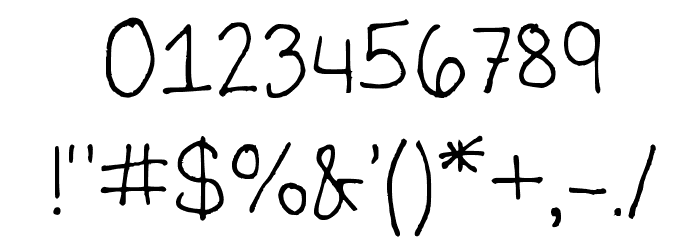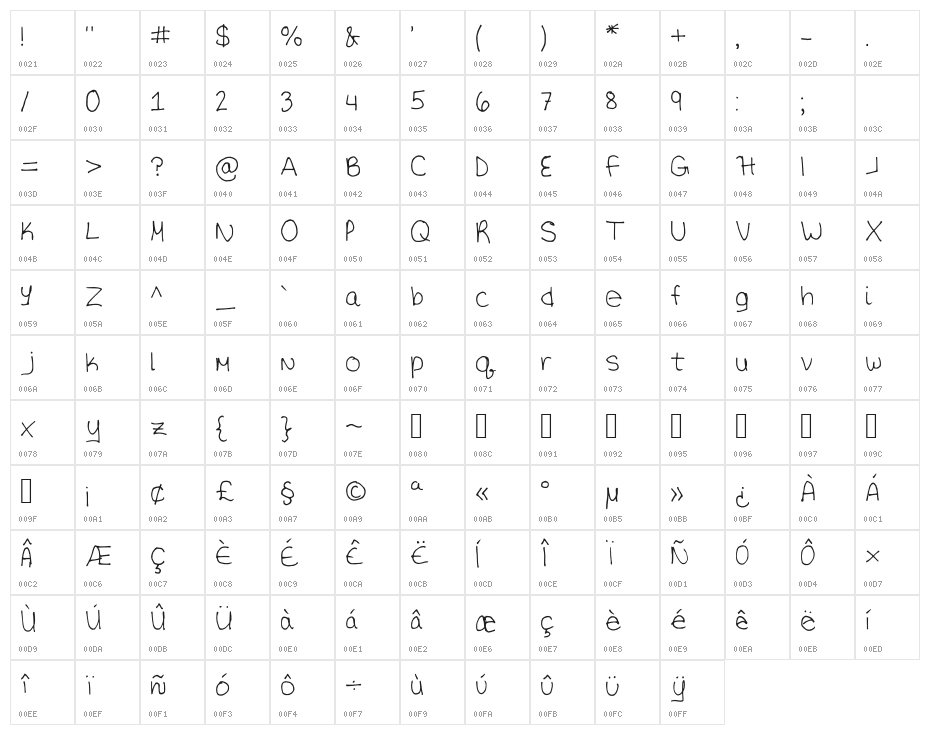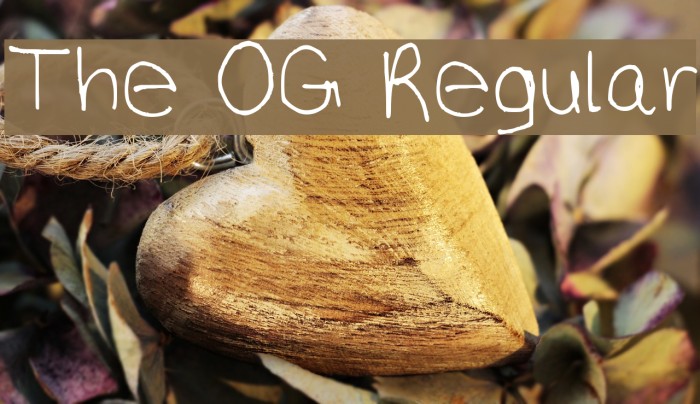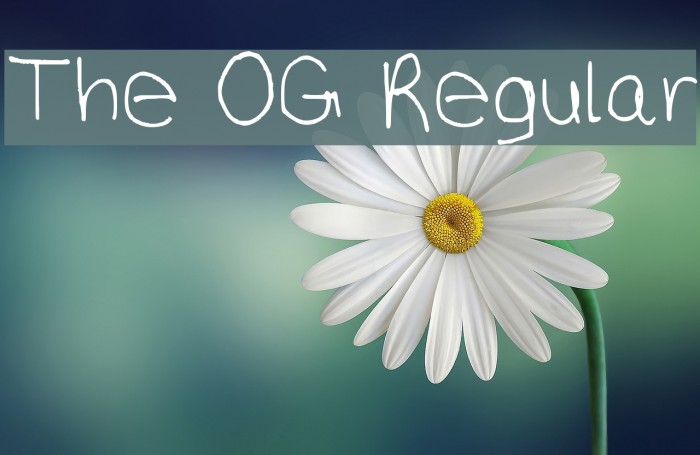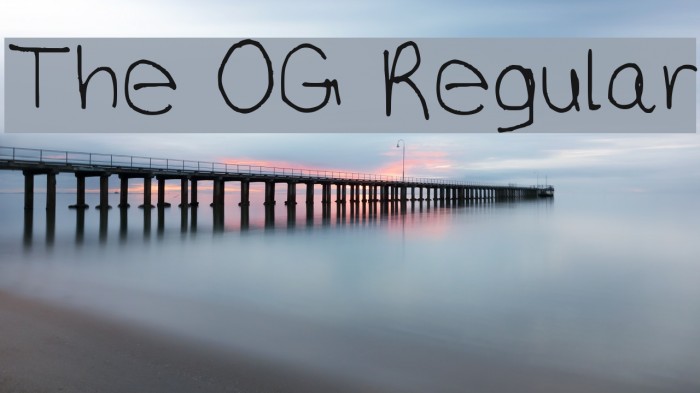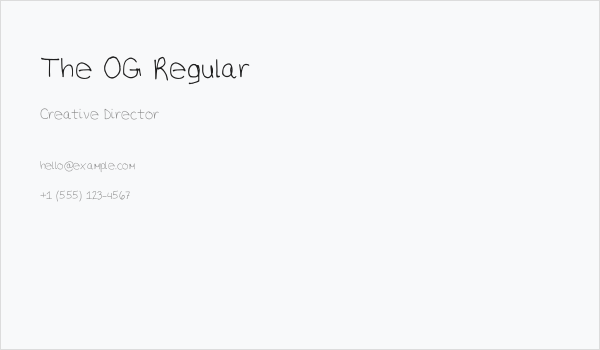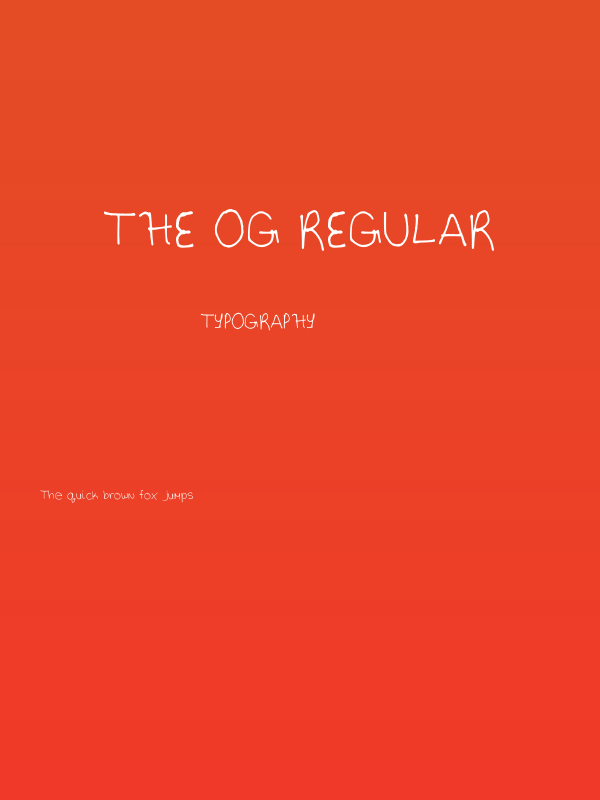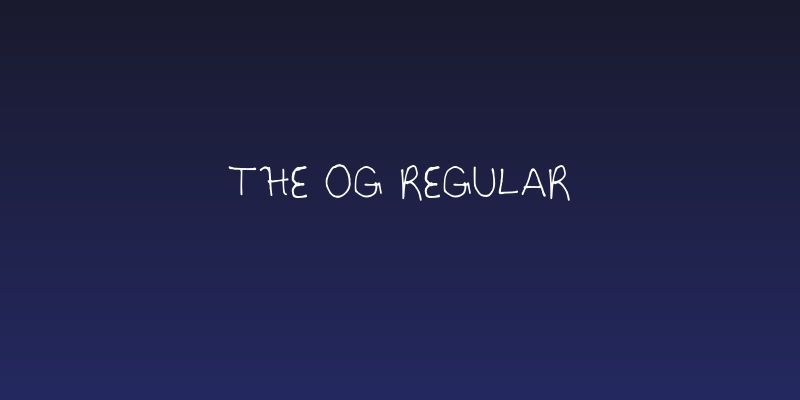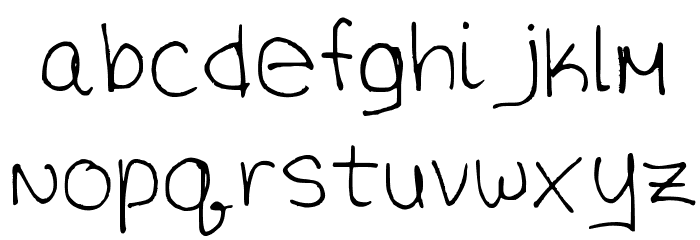
The OG Regular Font
The OG Regular Description
This font exudes a playful and informal vibe, characterized by its handwritten style. The letters are unevenly shaped, giving it a casual and organic appearance. The strokes vary slightly in thickness, contributing to its hand-drawn feel. The characters are slightly tilted and irregular, adding to the whimsical nature of the font. It includes a full set of uppercase and lowercase letters, numerals, and a variety of special characters, making it versatile for different uses. The overall look is approachable and friendly, suitable for projects that require a personal touch.
Overall StyleCasual
Use CaseHeadlines, Informal text, Creative projects
Proposed ProjectsIdeal for greeting cards, children's books, personal blogs, and informal branding.